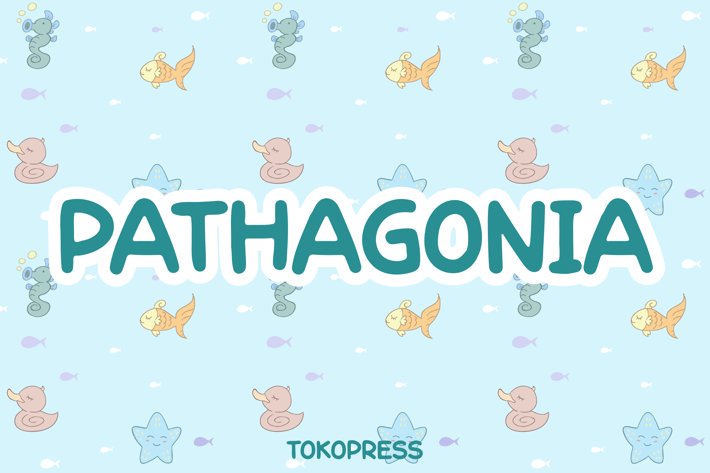
Pathagonia - Handwriting Kids font
Pathagonia - Handwriting Kids Font
Pathagonia is a joyful kids handwriting font with soft curves, low contrast strokes, and a bouncy baseline that mimics the spontaneity of real children's writing. Its rounded structure and playful rhythm create an approachable, heartfelt aesthetic perfect for early education, birthday cards, toy packaging, or YouTube thumbnails.
Designed to radiate friendliness and charm, Pathagonia brings visual warmth to any child-focused brand with an aesthetic that feels handcrafted and filled with curiosity.
Whether you're creating a preschool logo, designing a candy-themed game UI, or illustrating a storybook cover, Pathagonia captures the perfect blend of innocence and color. It’s especially suited for educational posters, playful packaging, DIY craft kits, and social content targeting parents or young learners. Pathagonia's cheerful attitude helps you build instant trust and appeal in any kid-centered creative project.
Key Features :
Soft & Bouncy Structure
• Letters with natural imperfection and light bounce bring authentic childlike energy.
Friendly & Handwritten Vibe
• Designed to feel approachable, calming, and fun—ideal for ages 3–10 audience.
Visually Inclusive
• Uppercase and lowercase letter shapes are clean and distinguishable for early readers.
Perfect for Kids Branding
• Use across storybooks, birthday kits, toy boxes, YouTube channels, and more.